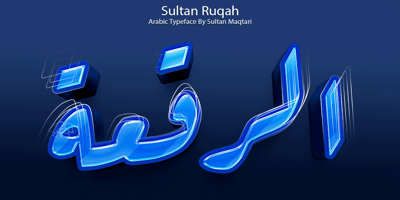
SF Ruqah Font Family was designed by Sultan Maqtari and published by Sultan Fonts. SF Ruqah contains 3 styles and family package options. Ten years ago, I introduced a package of Ruqah fonts, with the most prominent being Ruqah Light, Ruqah Regular, and Ruqah Bold. Today, I am thrilled to announce the renewal of these 3 fonts, with improved design and more beautiful lettering. My goal is to eventually create a computerized Ruqah font that closely mimics handwriting. I encourage creators and designers to give this package of Ruqah fonts a try, as they offer great artistic potential and versatility in various creative projects. من عشر سنوات مضت، قدمت حزمة من خطوط الرقعة، من بينها الخط الرقعة الثقيل والخط الرقعة الخفيف. اليوم، أعيد تجديد هذه ٣ خطوط وجعل حروفها أجمل للمساعدة في الوصول تدريجيا إلى خط الرقعة الرقمي القريب من الكتابة اليدوية. فليجرب المبدعون هذه الحزمة من خطوط الرقعة، لأن هذا الخط قادر على التكيف الفني في مختلف المشاريع الإبداعية.